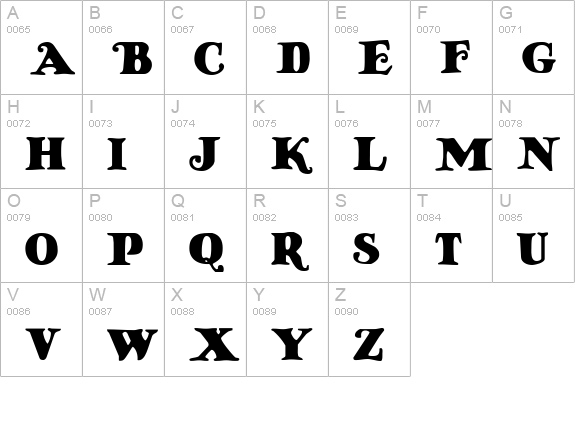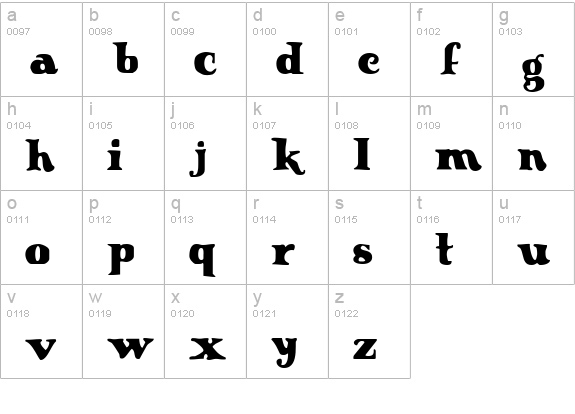
Knuffig Font Details
Introducing Knuffig font, a delightful and whimsical typeface that will add a touch of charm to your designs. With its rounded edges and playful curves, Knuffig exudes a sense of warmth and friendliness that is perfect for a variety of creative projects. Whether you're working on a children's book, a greeting card, or a logo design, Knuffig is sure to bring a smile to your audience's face. What's even better is that Knuffig is available for free download at FontsMarket.com. That's right, you can add this adorable font to your collection without spending a dime. So why wait? Give your designs that extra dose of cuteness with Knuffig font today!